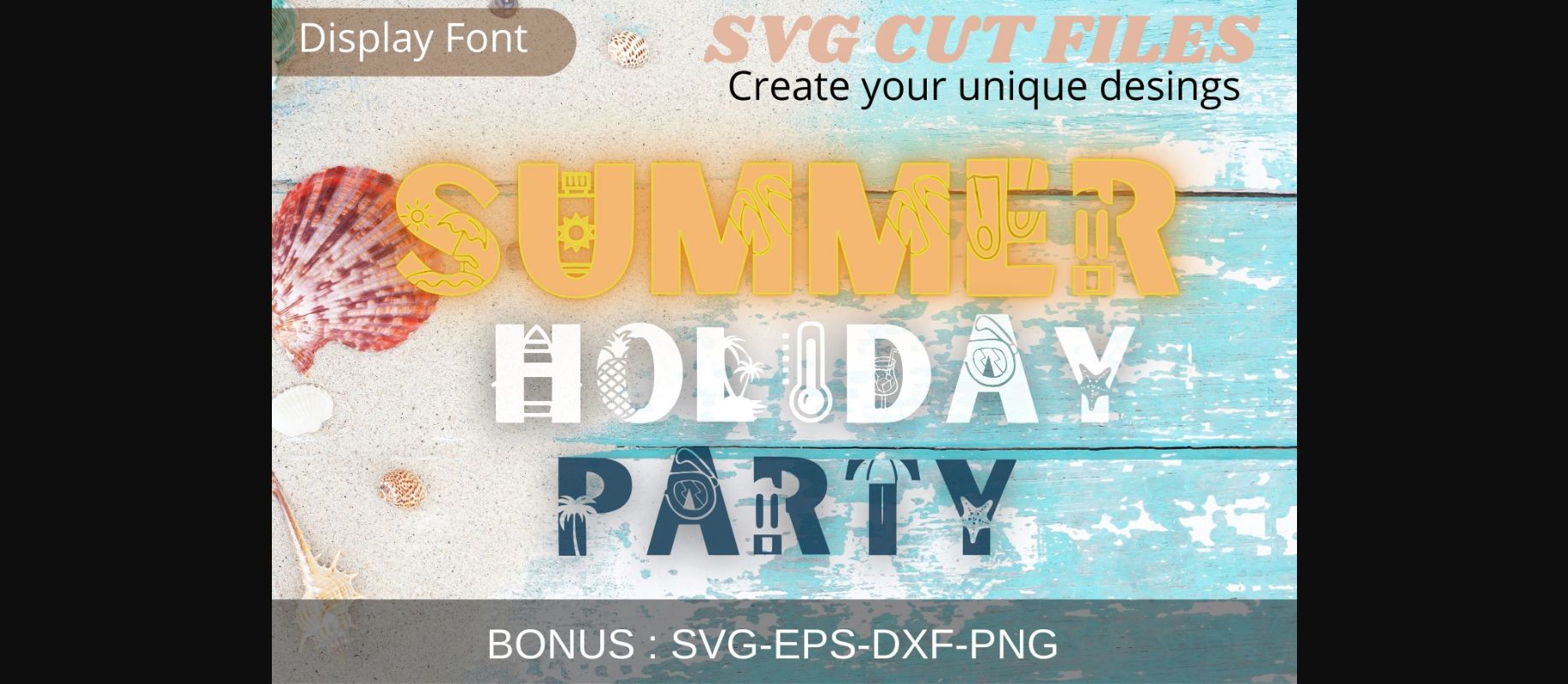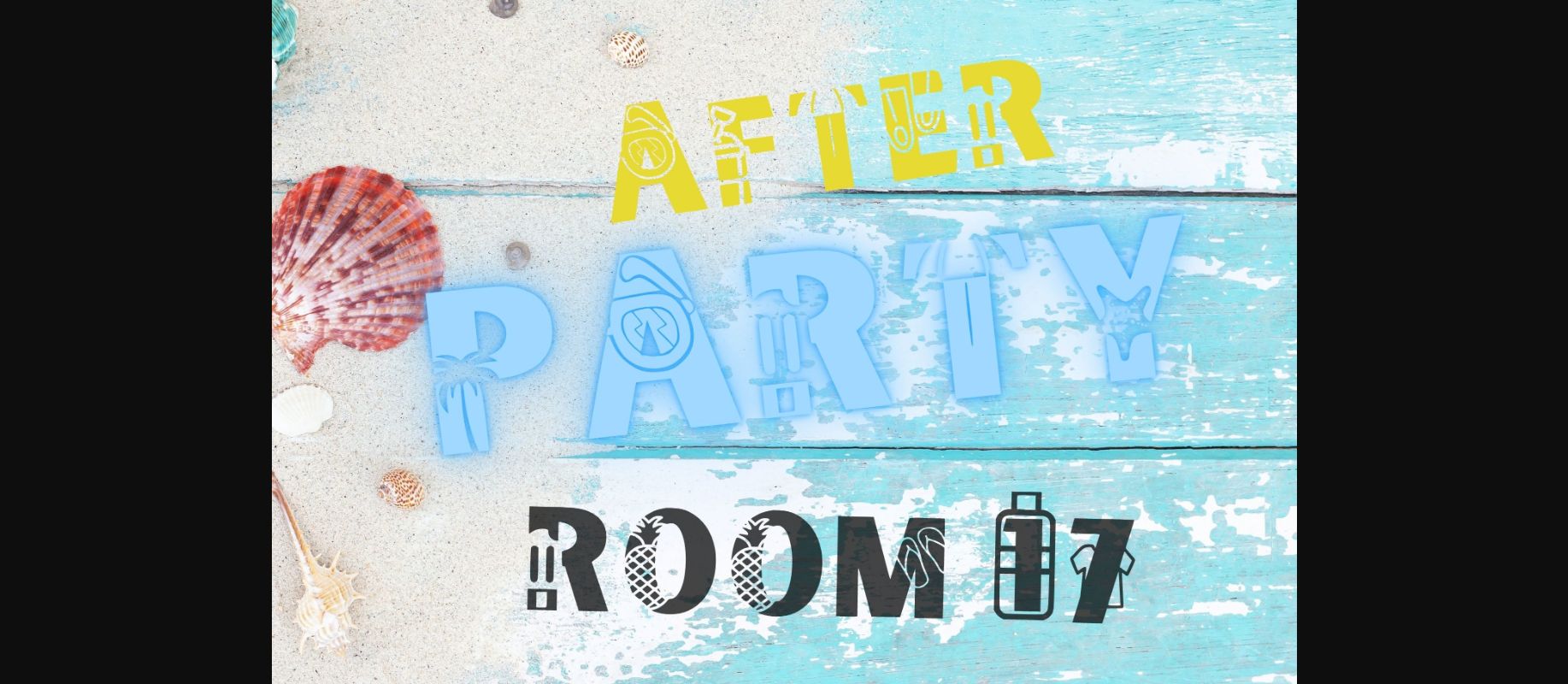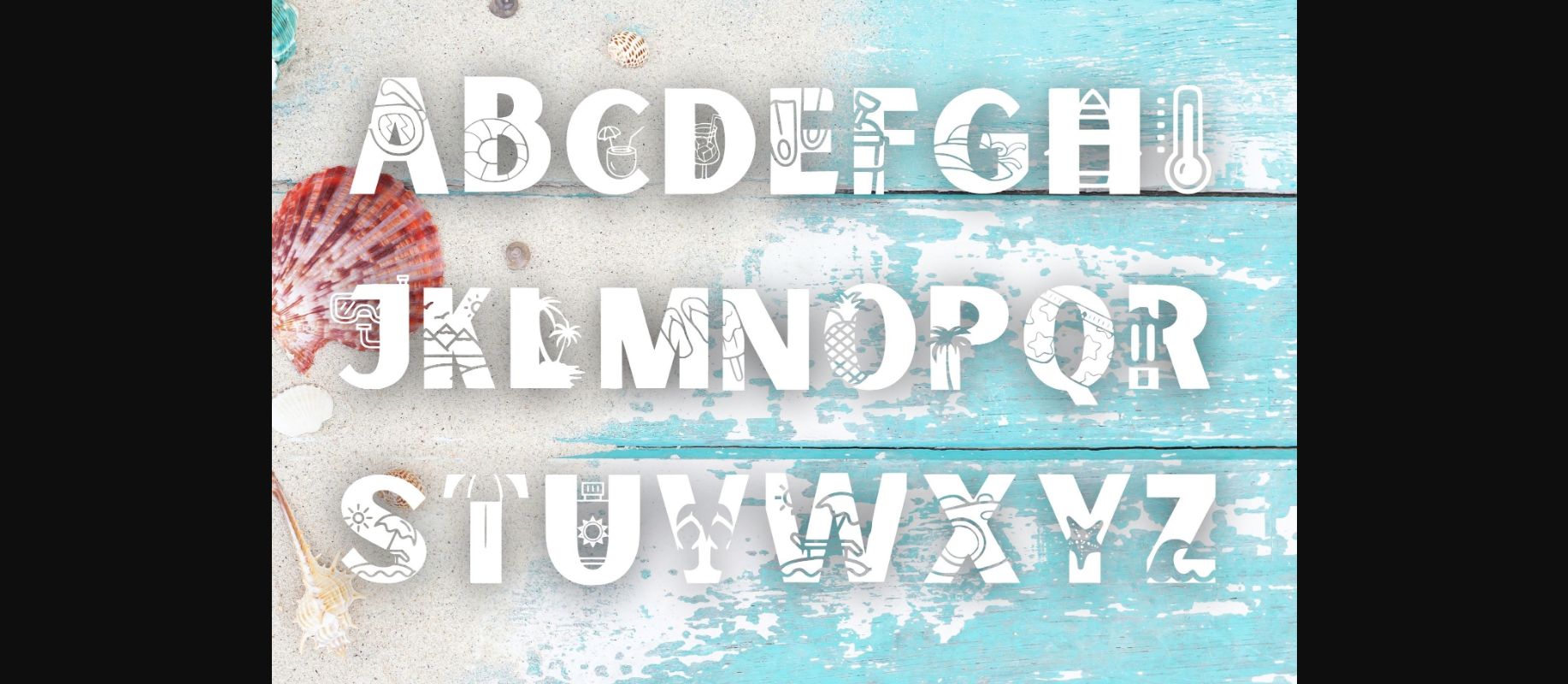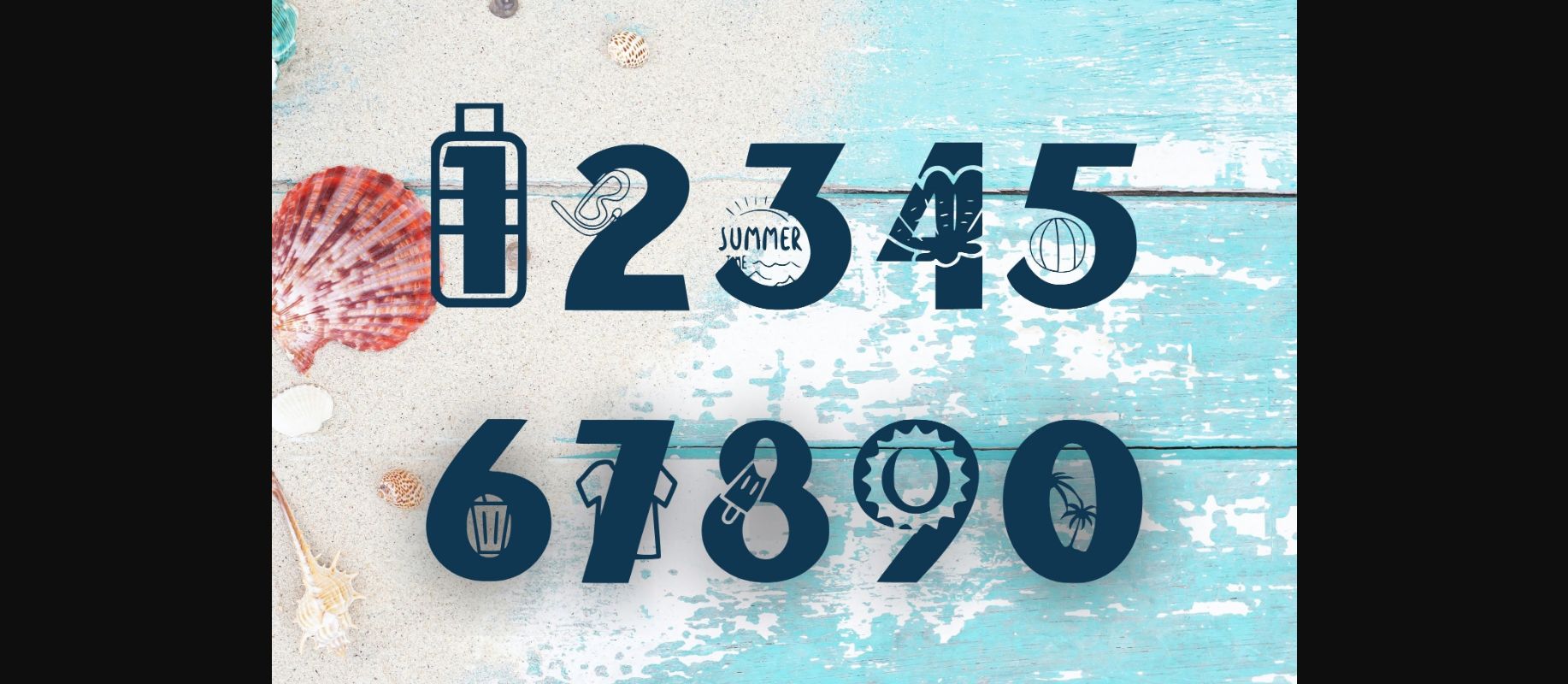
Summer Holiday Party Font
About Summer Holiday Party Font
Summer Holiday Party is a cool and fun looking decorative font. It is suitable for logotype, headline font, in corporate identity, brand identity, apparel industry, poster, music, movie, game, magazine, book, comic, cartoon, YouTube, Instagram, website, or any of your creative design projects.